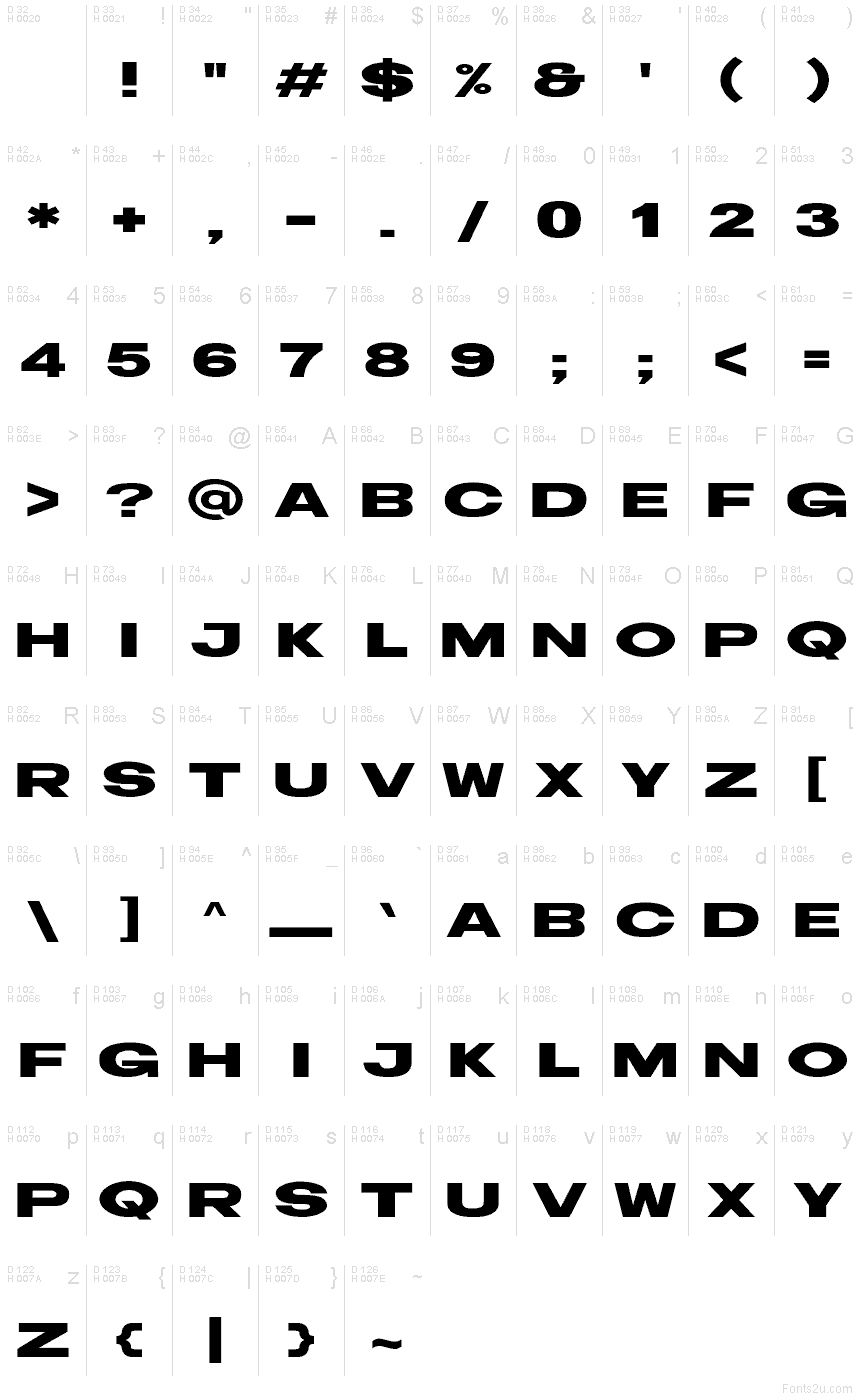
Goride Sans Extended
Goride Sans Extended font by The Branded Quotes, is a bold and expanded sans serif. Its clean lines and geometric structure offer excellent readability across different platforms and screen sizes, making it a versatile choice for various projects. Goride effortlessly captures attention while maintaining a contemporary aesthetic that embodies modernity with clarity.
Practical and functional, this free sans serif font is ideal for video thumbnails, posters, magazine covers, banners, presentations, branding projects, websites, apps, band covers, promotional materials as well as captions. Its compact style elevates your designs to the next level with a flair that will appeal to any audience today!